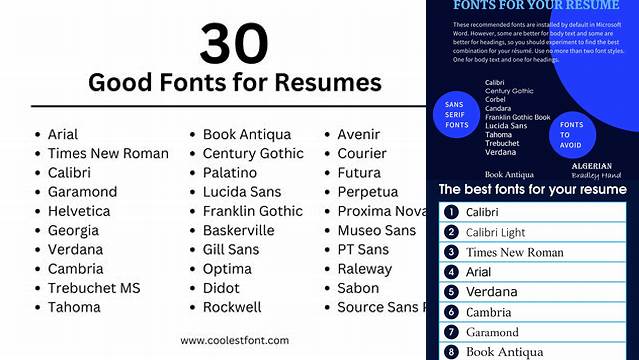
Best Resume Fonts: Simple Choices For Great First Impressions
Hey there, future job seekers! Ever thought about how much your font choice on a resume actually matters? It's like the handshake of your job application – it sets the tone. Picking the best simple fonts for your resume can be the difference between getting a call back and getting lost in the pile. Let’s dive into why this is crucial and which fonts will help you stand out without shouting too loud. I'll break down some simple resume fonts that are both readable and professional, so you can make a killer first impression. Ready to transform your resume from “meh” to “marvelous”? Let's do it!
Why Your Font Choice Matters: First Impressions Count
Okay, so you might be thinking, "Seriously, font?" Yep, seriously! In a world where recruiters and hiring managers are skimming through hundreds of resumes, every little detail counts. The font on your resume is your first chance to make a good impression. It’s about more than just aesthetics; it's about readability, professionalism, and subtly conveying your personality (yes, really!). The best simple fonts for resumes ensure your document is easy to read. Imagine trying to read a resume with a tiny, ornate font – a total headache, right? Recruiters don’t have time for that. They want to quickly and easily see your skills and experience. A well-chosen font says, "I'm organized, professional, and I pay attention to detail." That’s the vibe you want to give off, right?
Here’s the deal: a clear, easy-to-read font shows respect for the reader's time. It makes your resume a pleasure to read, which increases the chances of your content being absorbed. Conversely, a hard-to-read font can frustrate the reader, making them less likely to focus on your qualifications. When they can't easily read your resume, they might miss important information. In the competitive job market, you want to give yourself every advantage. This includes things like using the best simple fonts for your resume. A simple font can make your content clear and easy to understand. Choosing the right font can also reflect your personality. While you want to maintain a professional look, the font can still give a peek into your personality. Are you creative? Modern? Traditional? Your font choice can hint at these things. Think about it: a sleek, modern font might be perfect for a tech startup application, while a classic font might be better for a more established, traditional industry. So, you have to think about what font is best for the job you are applying for. It's all about finding that sweet spot where readability meets professionalism and hints at your unique style. Understanding this can help you tailor your resume to each application.
Remember, your resume is your personal marketing document. It’s selling you to a potential employer. Your font choice is a part of that sales pitch. It’s a way to show that you understand the importance of presentation and that you're willing to put in the extra effort to make a great first impression. Choosing from the best simple fonts for a resume is a key part of that.
Top Font Choices for Your Resume
Alright, let's get down to the nitty-gritty and look at some of the best simple fonts for your resume. These fonts have been tried, tested, and approved by recruiters and HR pros worldwide. They’re easy on the eyes, professional, and won’t distract from your amazing skills. These fonts are widely available and can be used without worrying about compatibility issues. Choosing from the best simple fonts for your resume is always the way to go. Remember, the goal is clarity and readability. So, here are some top recommendations:
1. Arial: The Timeless Classic
Arial is the workhorse of fonts, and for good reason. It's a sans-serif font, which means it doesn't have those little decorative strokes (serifs) at the ends of the letters. This makes Arial clean, modern, and incredibly readable, especially on screens. It’s widely available on almost every computer, so you don’t have to worry about compatibility issues. Arial is known for its excellent legibility in both print and digital formats, making it a safe and effective choice for any resume. Think of Arial as the reliable friend who always shows up on time and gets the job done without any fuss. Because of the sans-serif nature, it provides a clean and modern look that appeals to many employers. Arial is simple, straightforward, and works well in various professional contexts. It has a consistent appearance across different devices and platforms. This consistency is a big plus when your resume could be viewed on any device.
Many recruiters love Arial because it is simple. It doesn't call too much attention to itself, so the focus remains on your content. It allows your qualifications and experiences to speak for themselves. Using Arial gives your resume a polished, professional look. When in doubt, Arial is a fantastic, reliable option. It's a classic for a reason. It's easy to read in almost any environment. For those new to resume writing or unsure about other font choices, Arial is an easy and safe choice.
2. Helvetica: The Stylish Choice
Helvetica is another classic sans-serif font, but with a slightly more refined and sophisticated look than Arial. It's a favorite among designers and is known for its clean lines and balanced proportions. Helvetica projects an image of professionalism and modernity. Like Arial, it's highly readable on both paper and screen. Helvetica is often considered to be a bit more stylish than Arial, but it still maintains a very professional appearance. When choosing a font, your personal preference plays a role, but choosing the best simple fonts for a resume is key to making sure your resume is seen in a positive light.
Helvetica's versatility makes it suitable for a wide range of industries. It's a great option if you want to make a subtle statement of style without going overboard. If you're aiming for a slightly more design-conscious look, Helvetica is an excellent choice. Think of it as the well-dressed professional who knows how to make a statement without being flashy. Its clean and clear design is easy on the eyes. Helvetica has been used in branding and design for decades, which adds to its appeal. It has a reputation for being a sophisticated and reliable font. Its neutral and unobtrusive nature makes it ideal for highlighting your experience and skills. When formatted correctly, it can make your resume visually appealing. While it's slightly more stylish than Arial, it remains professional and readable. This blend of sophistication and practicality makes it suitable for almost any job application.
3. Calibri: Modern and Readable
Calibri is a sans-serif font that’s been a default option in Microsoft Office for a while. It's designed to be extremely readable on screen, which is super important if your resume is being viewed digitally. Calibri has a slightly rounded appearance, which gives it a friendlier, more modern feel than some other options.
Calibri is another fantastic choice for those looking for simple resume fonts. It is known for its legibility and contemporary appearance. Its design is optimized for digital viewing, which is essential in today’s job market. It's very versatile. Calibri is a good all-around choice. It's excellent for various industries, from tech to finance. The slightly softer, rounded edges of Calibri give it a welcoming feel, making your resume approachable. Its clean and modern look is suitable for many professional settings. If you are trying to make a good first impression, Calibri is the right choice. This font is very adaptable. It looks great in both print and digital formats. Calibri is another excellent option. Because it's a default font, you don't have to worry about compatibility issues. If you want to stand out from the crowd, Calibri could be the perfect choice for you.
4. Times New Roman: The Traditionalist's Pick
Times New Roman is a serif font, meaning it has those little strokes (serifs) at the ends of the letters. It’s a classic font often associated with traditional industries. It's a great choice if you're applying for roles in fields like law, academia, or any profession where a more formal look is preferred. This font is known for its classic look.
Times New Roman provides a sense of reliability and tradition. Using Times New Roman on your resume can convey a sense of seriousness and attention to detail. It can be a good choice if you are applying to fields like finance or legal. However, be aware that Times New Roman can look a bit dated in some contexts. Consider whether the industry you're applying to embraces a more modern aesthetic. If you are trying to make a good first impression, consider the best simple fonts for your resume, and then choose one that's right for the job. The font choice is essential for making a good first impression. This font is very adaptable. It looks great in both print and digital formats. Times New Roman is another excellent option. Because it's a default font, you don't have to worry about compatibility issues. If you want to stand out from the crowd, Times New Roman could be the perfect choice for you.
5. Garamond: A Touch of Elegance
Garamond is another serif font, but it has a more elegant and sophisticated feel than Times New Roman. It's known for its excellent readability, even at smaller sizes. Garamond is an excellent choice if you want to give your resume a touch of class and sophistication. Its classic design makes it suitable for industries where elegance and tradition are highly valued. Garamond is a great choice if you want your resume to stand out from the crowd while still maintaining a professional appearance.
This font strikes a balance between traditional and modern design, giving your resume a unique touch. Garamond's readability makes it easy to read, regardless of the format. Garamond is an excellent choice if you want to give your resume a touch of class and sophistication. Its classic design makes it suitable for industries where elegance and tradition are highly valued. This is a good choice if you want your resume to make a good first impression. Consider whether the industry you're applying to embraces a more modern aesthetic. If you are trying to make a good first impression, consider the best simple fonts for your resume, and then choose one that's right for the job. Garamond can be a good option for those seeking employment in creative fields. This font is very adaptable. It looks great in both print and digital formats. It is a good option. Because it's a default font, you don't have to worry about compatibility issues. If you want to stand out from the crowd, Garamond could be the perfect choice for you.
Font Size and Formatting: Key to Readability
Choosing the best simple fonts for your resume is only half the battle. The size and formatting of your font are just as important for readability. You want to make sure your resume is easy to read at a glance. The font size is important. Recruiters shouldn’t have to squint to read your resume! A good font size for your body text is between 10 and 12 points. Headings can be a bit larger, usually between 14 and 16 points, to make them stand out. Be consistent with the size throughout your resume. This consistency gives your resume a professional look. It makes it easier for the reader to navigate the content. You should pay attention to the spacing. Ensure there's enough space between lines of text. Use a line spacing of 1.15 to 1.5 to prevent the text from appearing cramped. Proper spacing improves readability and keeps your resume organized. Use bold and italics sparingly. Bold is great for headings or key achievements. Italics can be used for emphasis or titles. Don't overuse these formatting options, as too much of it can make your resume look cluttered and unprofessional. The correct formatting can lead to more interviews.
Also, remember to maintain consistent formatting throughout your resume. This includes font size, spacing, and the use of bold or italics. Consistency shows that you pay attention to detail. It makes your resume more visually appealing and easier to read. Ensure that your formatting is compatible with ATS (Applicant Tracking Systems). When choosing the best simple fonts for your resume, think about how the font will be interpreted by the systems. The design of your resume is important.
Avoiding Font Faux Pas: What to Steer Clear Of
Okay, let’s talk about what not to do. Just as important as choosing the best simple fonts for your resume is knowing which fonts to avoid. There are a few font choices that can make your resume look unprofessional or even get it tossed in the “no” pile.
- Avoid overly decorative fonts: Fonts like Comic Sans, Papyrus, or Curlz are a big no-no. These fonts are fun for party invitations, but they scream “unprofessional” in a resume. They can be hard to read and distract from your skills and experience. Stick to clean, simple fonts.
- Be wary of unusual fonts: If you're tempted to use a font that's not widely used or is very stylistic, think twice. Unusual fonts can be difficult to read and may not render correctly on all devices.
- Don't use too many different fonts: Sticking to one or two fonts is the best approach. Using too many different fonts can make your resume look messy and disorganized. It can make it hard to follow.
Remember, your resume is not the place to showcase your font collection. It's about making sure your skills and experience are easily accessible to the reader. Your content is what matters most. So choose the font wisely and avoid any distractions that could detract from your qualifications. The best simple fonts for your resume will help you in the long run.
Tailoring Your Font Choice to the Job and Industry
Choosing a font isn’t just about finding something that looks nice. It's about selecting a font that aligns with the job and the industry you're targeting. Different industries and companies have different cultures and expectations, and your font choice can help you align with those expectations.
For more conservative industries like law or finance, sticking to classic fonts like Times New Roman or Garamond can be a good idea. These fonts project an image of professionalism and reliability, which can be highly valued in these fields. If you're applying to a more modern or creative field, you might have a bit more flexibility. Fonts like Arial or Helvetica can work well, giving your resume a clean, contemporary look. Think about the company's brand and culture. Research the company to get a sense of their style. If they have a more modern or innovative brand, you might lean towards a sans-serif font. A more traditional company might prefer a serif font. If you’re still unsure, it’s always best to err on the side of caution. Choose a clean, readable font that conveys professionalism. You can't go wrong with a classic font like Arial or Calibri. While your resume should reflect your personality, always keep the job's requirements in mind. The best simple fonts for your resume will set the right tone.
Test and Refine: Final Checks Before Sending
Before you send your resume, always test it! It’s crucial to make sure your resume looks good and is easy to read. Check that your formatting is consistent and your chosen font displays correctly. Open your resume on different devices (computer, tablet, phone) to see how it looks in various formats. It should be readable and well-formatted on each device. Check for any compatibility issues or formatting errors. If you have access to a printer, print out a copy of your resume. Sometimes, what looks good on screen doesn’t translate well to paper. Ensure the font size and spacing are still readable in print. Review your resume carefully to make sure that your content looks correct in different formats. The appearance matters just as much as your content. You want to ensure that your resume looks polished. Ask a friend or mentor to review your resume. Get a second opinion. Another set of eyes can catch mistakes or issues that you might have missed. They can also provide valuable feedback on the overall presentation and readability of your resume. Testing your resume ensures that your application is ready for the job. It’s a critical step in the process and can improve your chances of landing an interview. Choosing the best simple fonts for your resume will make a good first impression. Testing will ensure that it stays this way.
Final Thoughts: Your Font, Your First Impression
So, there you have it, guys! Choosing the best simple fonts for your resume is a simple but powerful way to boost your job application. Remember, it’s not about being fancy; it’s about being clear, professional, and easy to read. Select fonts that reflect your personality while maintaining professionalism. The right font choice can significantly impact your chances of making a positive first impression. Now you're ready to create a resume that makes you look great. With these tips, you can confidently select the perfect font for your resume and get noticed by potential employers. Good luck, and happy job hunting!